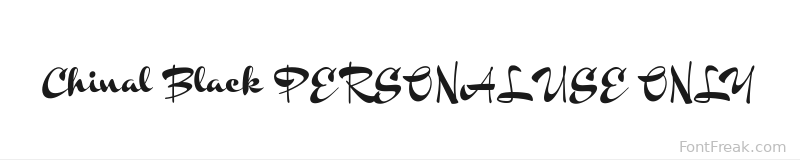
Chinal Black PERSONAL USE ONLY
Chinal Black PERSONAL USE ONLY by Mans Greback is a striking display font that captures attention with its unique character. This decorative typeface features a playful blend of bold strokes and artistic flair, making it an ideal choice for projects that require a touch of creativity and individuality. The font showcases a medium to bold stroke weight, which provides excellent visibility while maintaining a sense of elegance. Its slightly irregular, hand-drawn style adds a personal touch, making it feel warm and inviting.
The visual characteristics of Chinal Black include a moderate contrast in stroke thickness, which enhances its dynamic appearance. The spacing between letters is thoughtfully designed to ensure readability while preserving its decorative essence. This font is particularly suited for a range of creative applications, such as eye-catching wedding invitations, vibrant movie posters, trendy restaurant menus, and engaging social media graphics. Its versatility allows it to shine in both digital and print mediums, appealing to a wide audience.
What truly sets Chinal Black apart is its ability to convey personality while remaining functional. It stands out in a crowded font marketplace due to its distinctive design, making it a valuable addition to any creative's toolkit. Whether you're crafting a casual flyer or a sophisticated event invitation, this font is sure to enhance your work and captivate your audience.